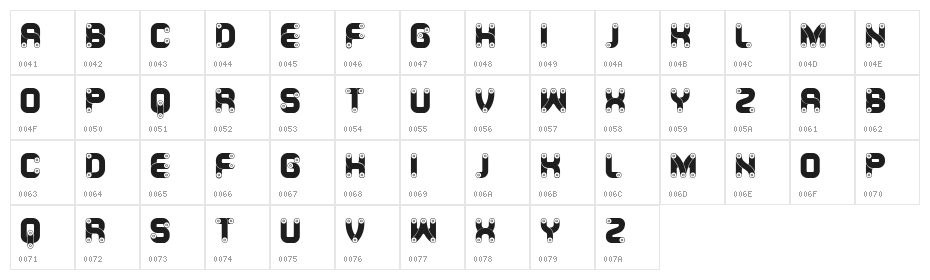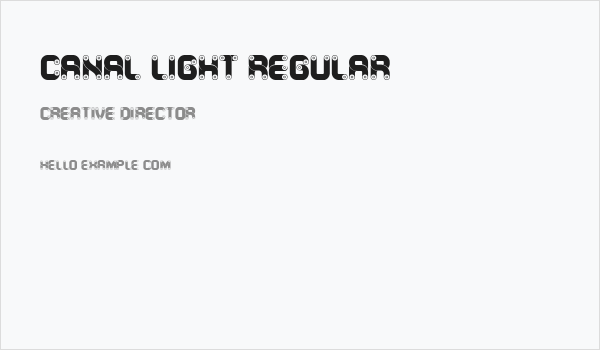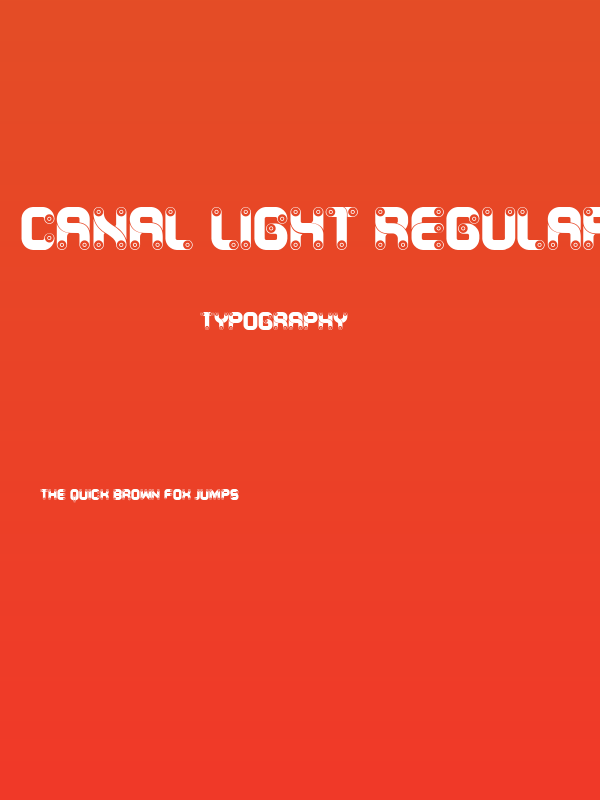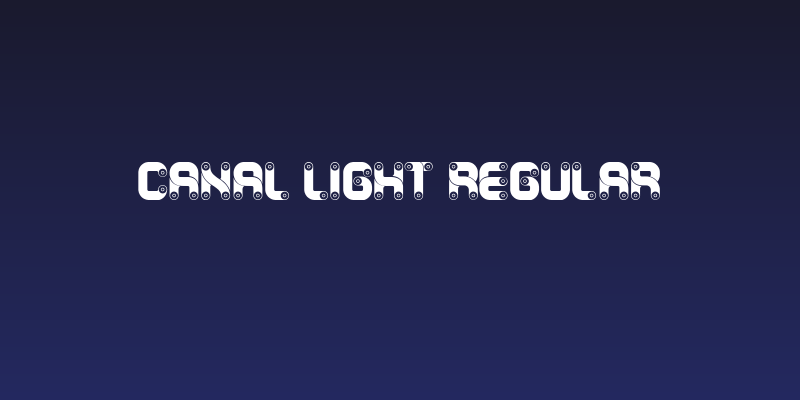
Canal Light Regular Font
Canal Light Regular Description
This font features a unique, mechanical design with a bold and industrial aesthetic. Each character is constructed with a series of circular elements that resemble gears or mechanical joints, giving it a distinctive, machine-like appearance. The letters are uniformly bold, with consistent stroke thickness throughout, contributing to a strong visual impact. The geometric shapes and precise alignment of the elements create a sense of order and structure, making it ideal for projects that require a modern, industrial feel. The font's design is both eye-catching and functional, suitable for a variety of creative applications.
| Proposed Projects | Ideal for branding, posters, and any design requiring a modern industrial aesthetic. |